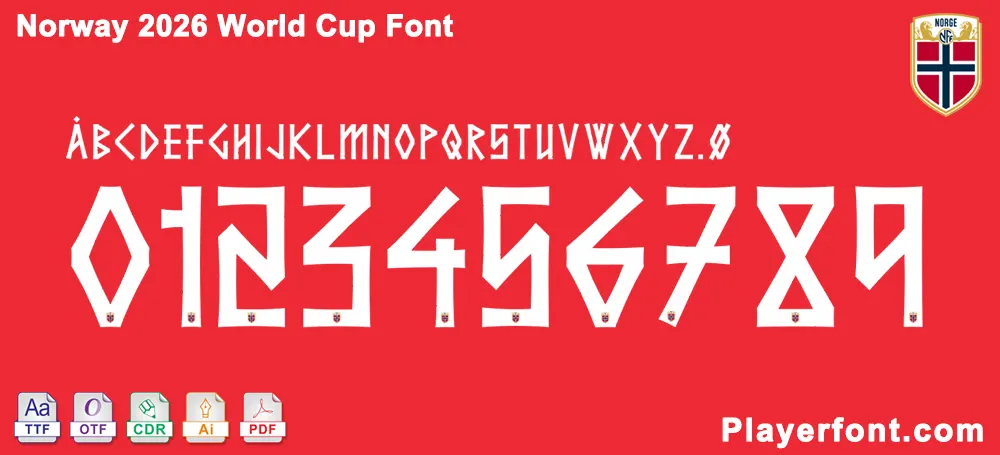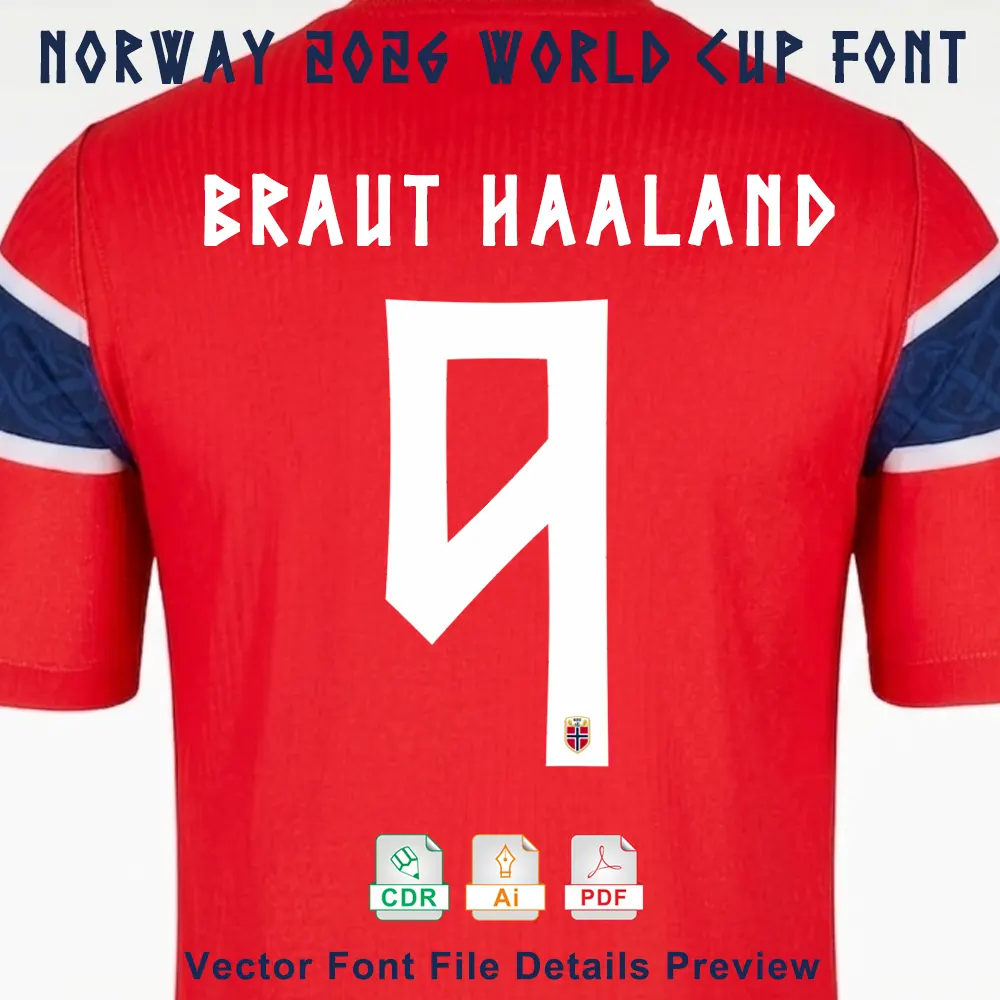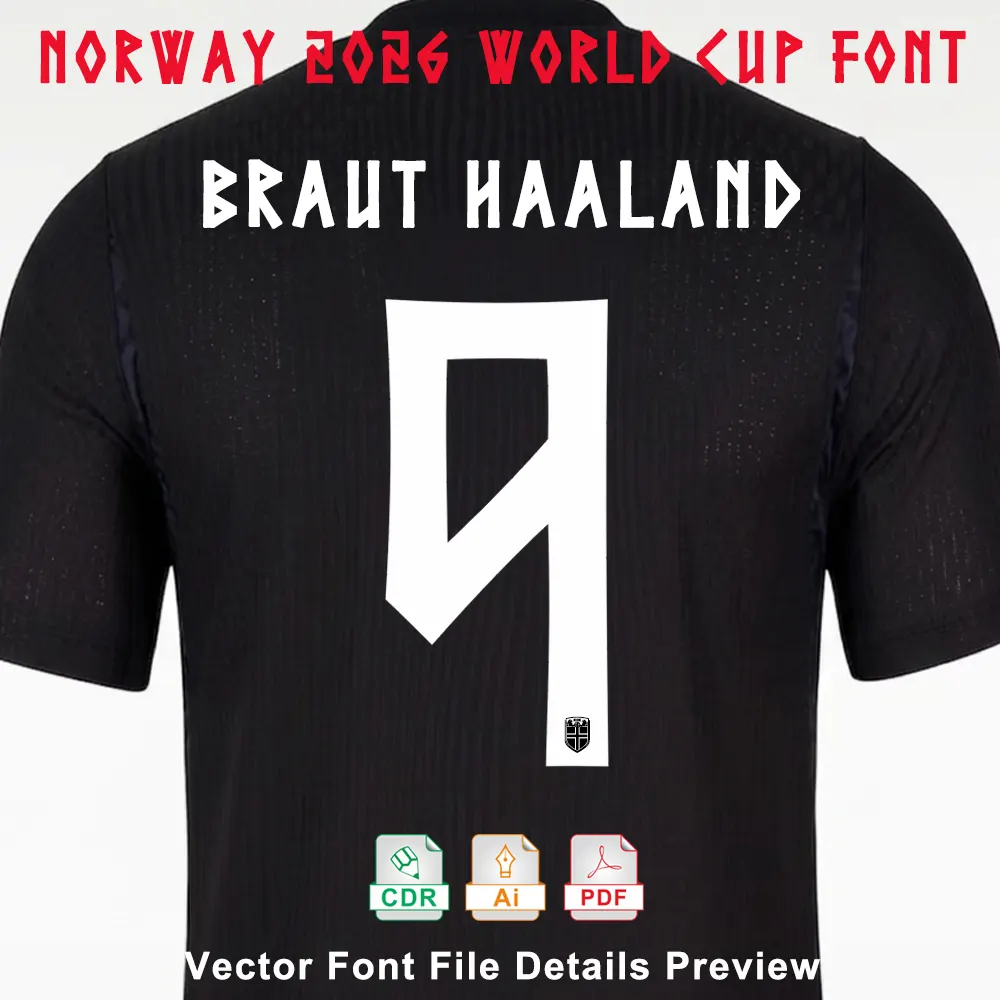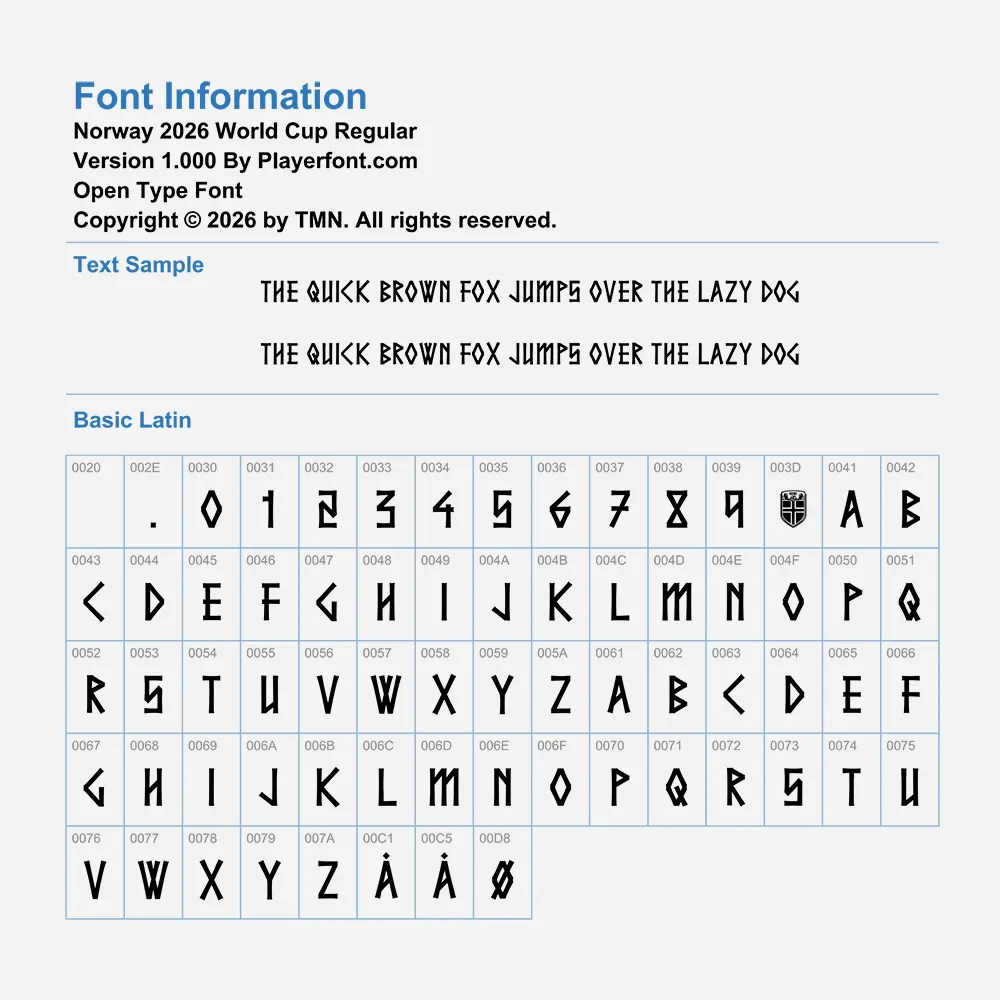
Elevate your sports design projects with the official-style Norway 2026 World Cup Font. This font captures the heritage and modern strength of Norwegian football, blending sharp, geometric angles with a Nordic runic influence.
Complete Character Map: Includes uppercase letters, numbers, and special Norwegian characters (Å, Æ, Ø).
Jersey Details: Includes the NFF (Norwegian Football Federation) crest integration for numbers.
Design Reference: This typography set is inspired by the official visual identity of the Norwegian Football Federation (NFF) and is meticulously crafted to match the aesthetic standards of the FIFA 2026 World Cup equipment regulations.